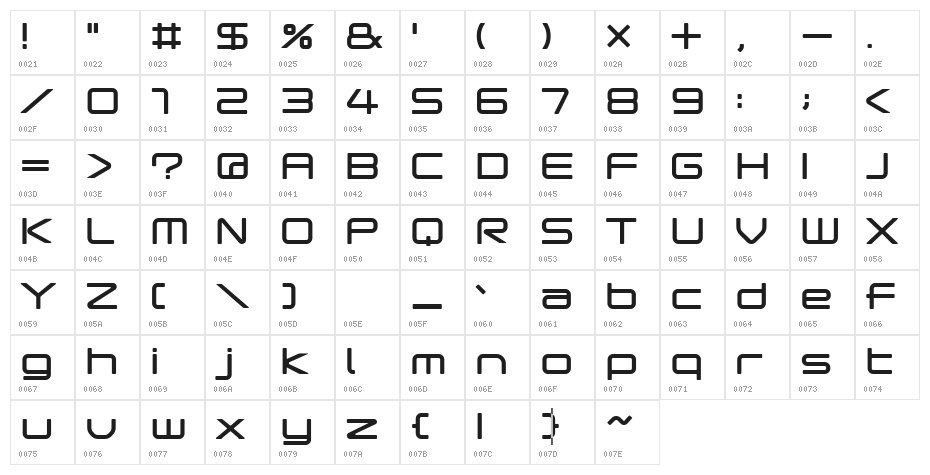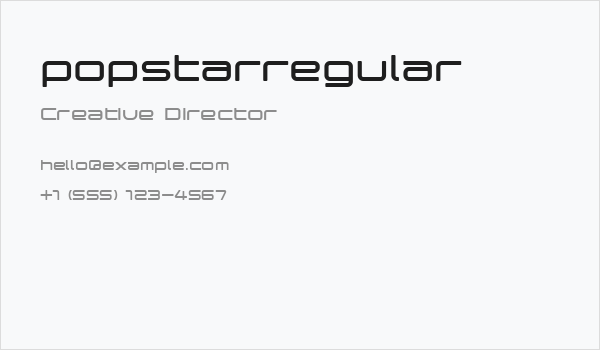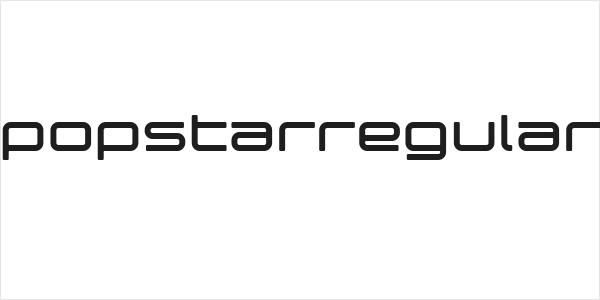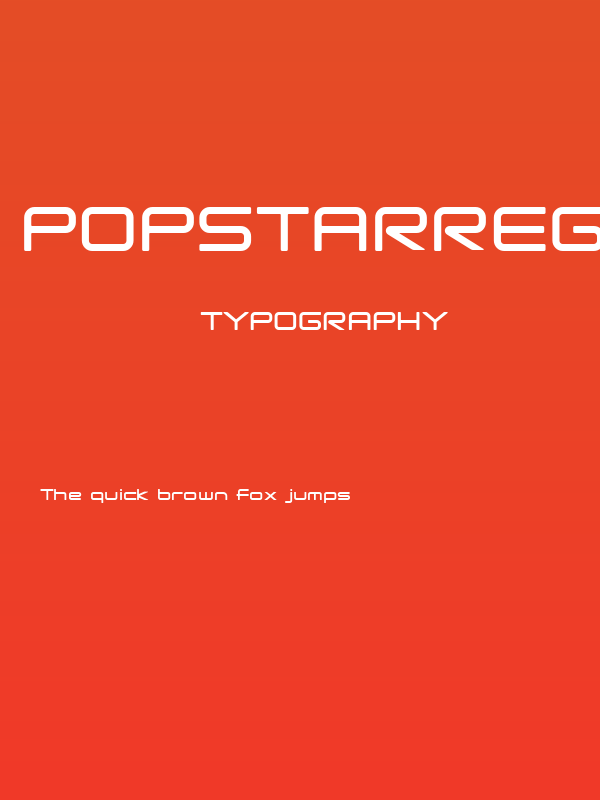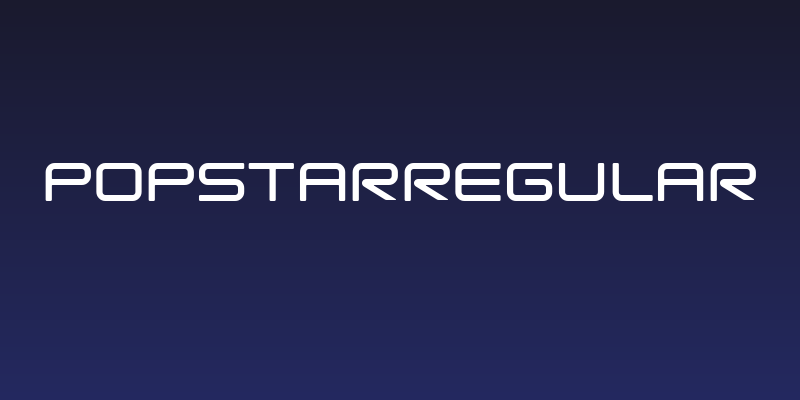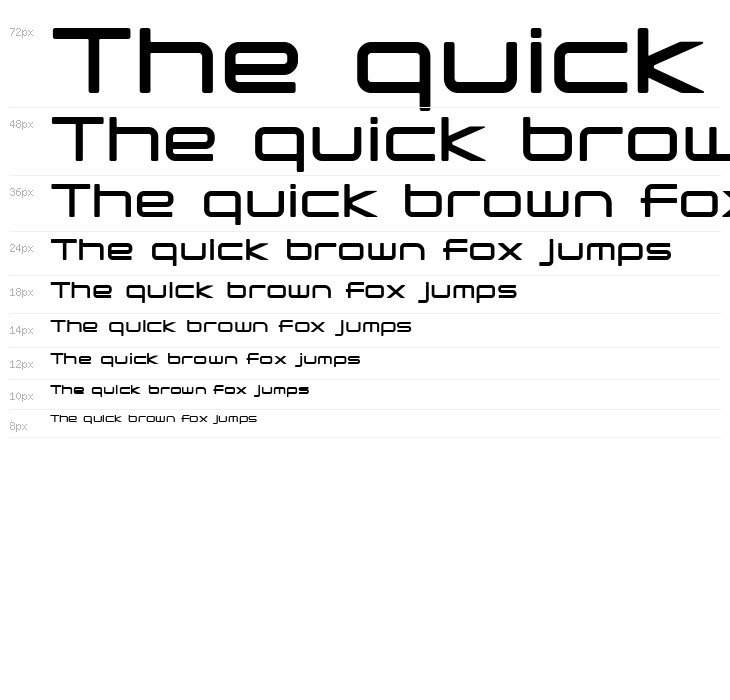
popstarregular Font
popstarregular Description
This font features a modern, geometric style with a sleek and futuristic appearance. The characters are constructed with clean lines and rounded edges, giving it a smooth and polished look. The uppercase and lowercase letters maintain a consistent height, contributing to a uniform and balanced design. The numerals and special characters are designed with the same geometric precision, ensuring a cohesive visual experience across all text elements. This font is ideal for projects that require a contemporary and tech-savvy aesthetic, making it suitable for digital interfaces, branding, and advertising.
Use CaseHeadlines, Logos, Digital interfaces
Proposed ProjectsIdeal for digital interfaces, branding, advertising, and tech-related designs.